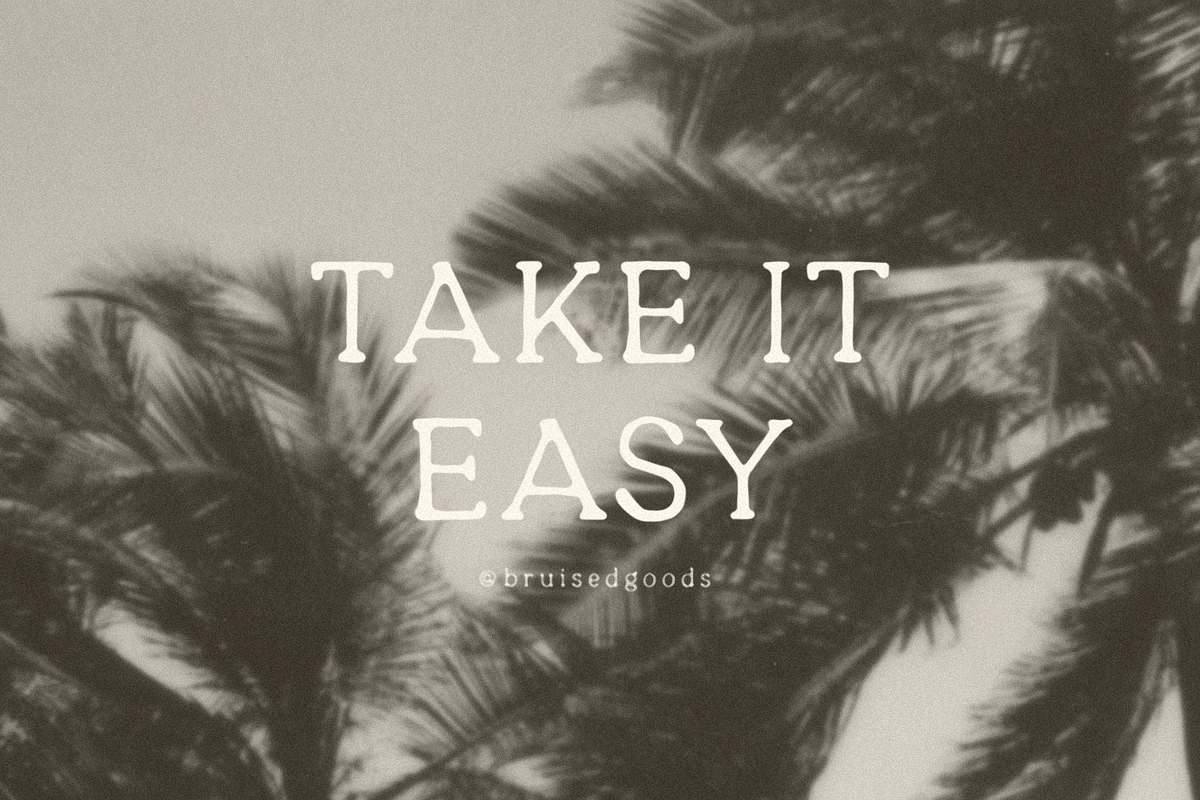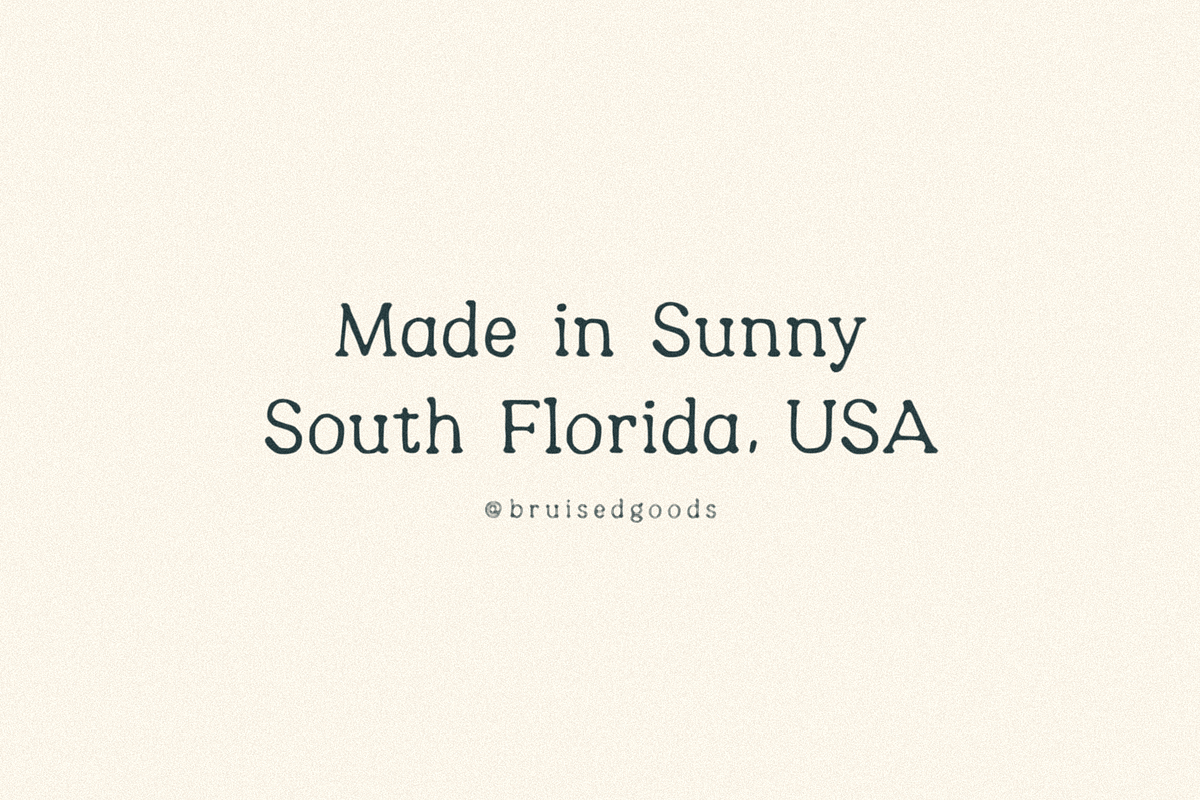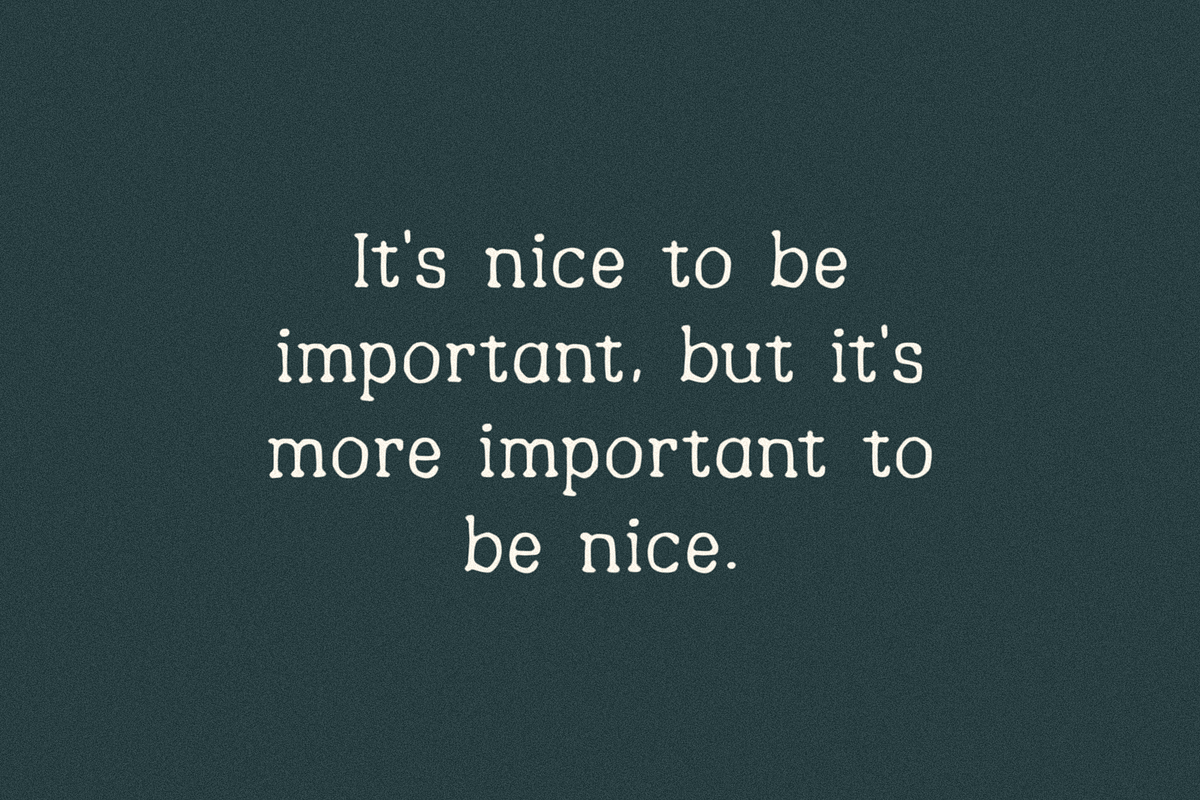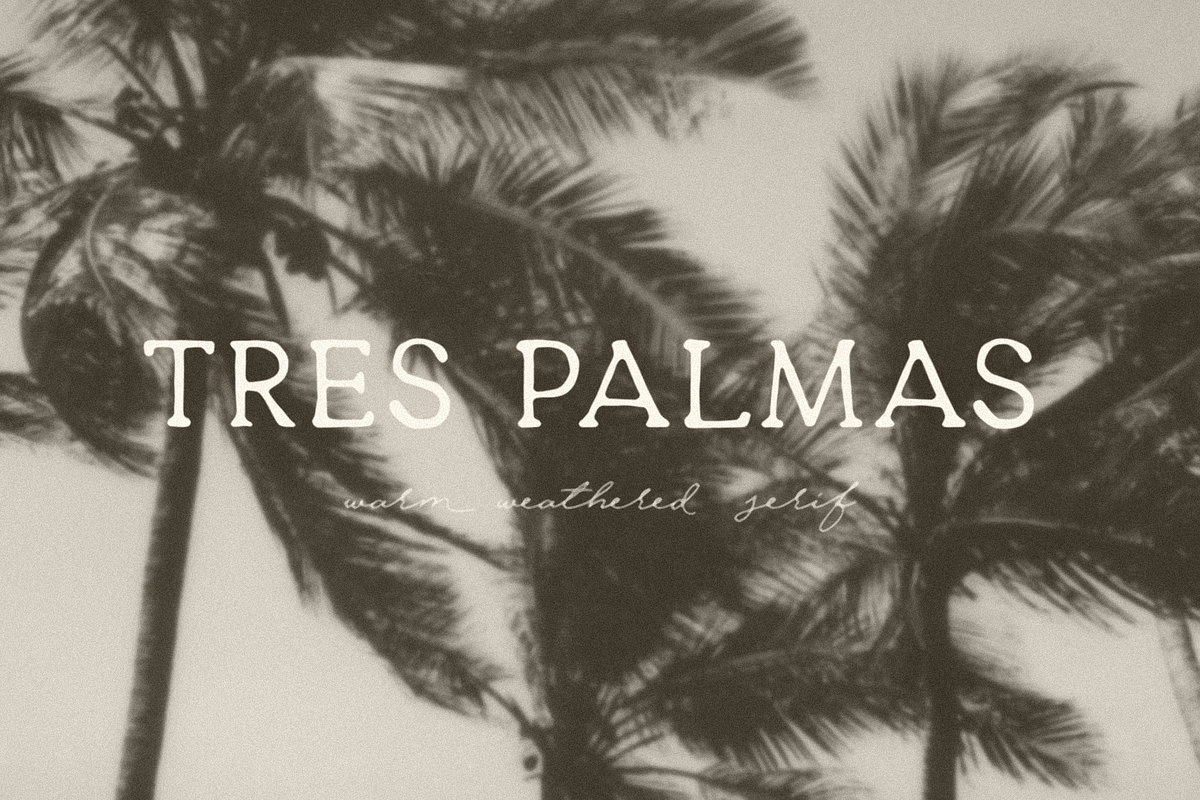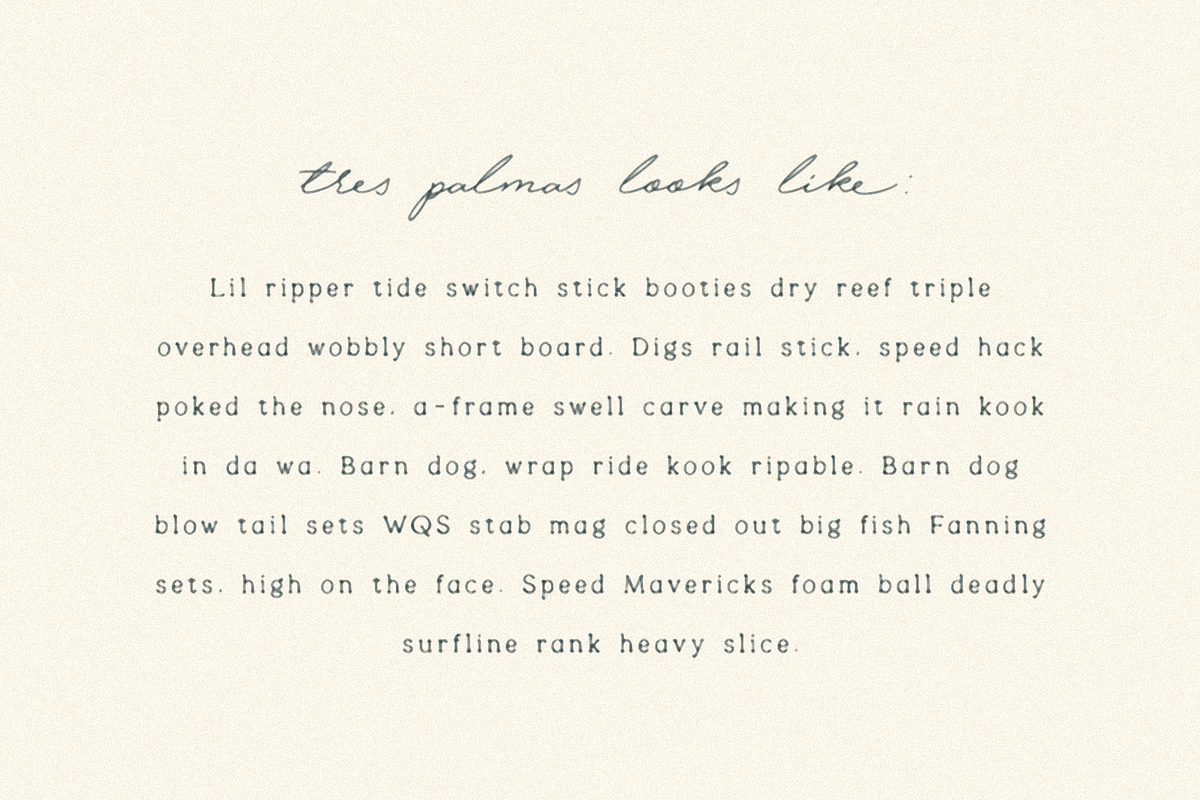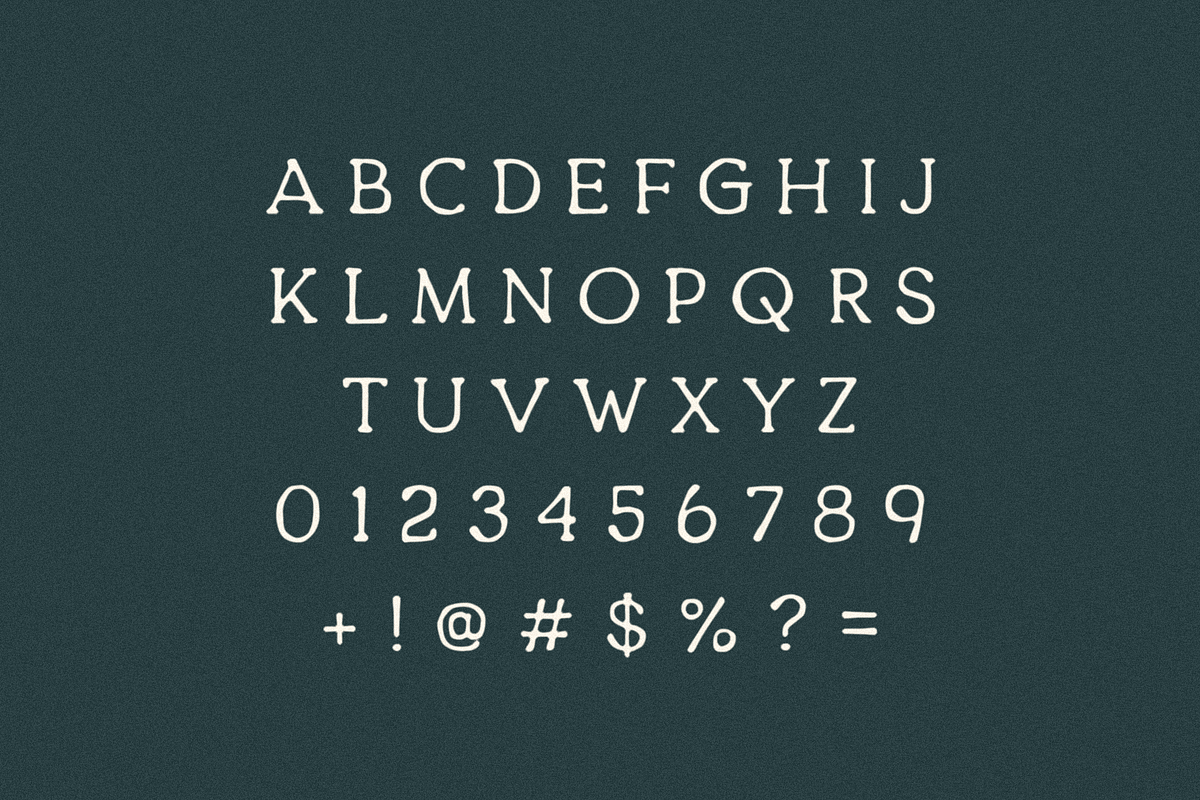
Tres Palmas
TRES PALMAS – A warm weathered serif font, hand crafted in sunny south Florida, USA.
- Standard English alphabet
- Numbers, Currency Symbols, Standard Punctuation